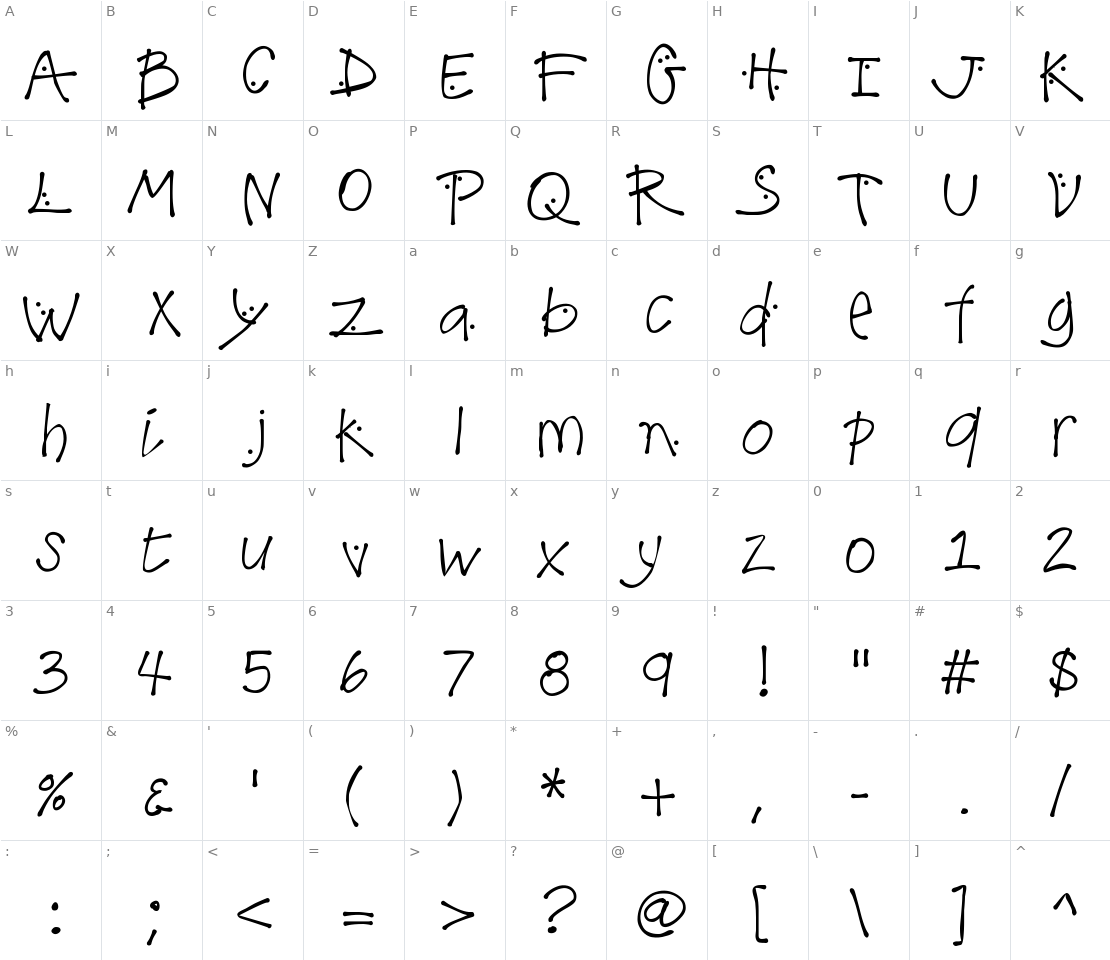
K26 Lilac Mist
K26 Lilac Mist is a thin, casual handwritten face from K26 Fonts with a quirky, slightly uneven rhythm that keeps it feeling genuinely personal. The lightweight strokes have a natural looseness to them, like notes jotted in the margin of a notebook without much thought to neatness. It works well for informal branding, greeting cards, blog headers, and anywhere you want type that feels intimate and human rather than designed.